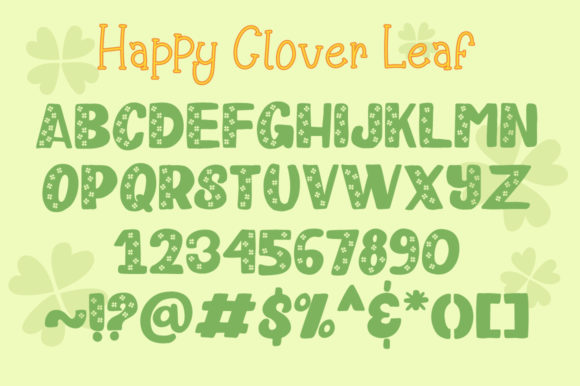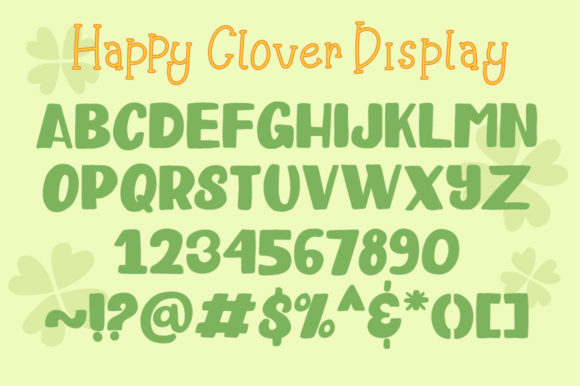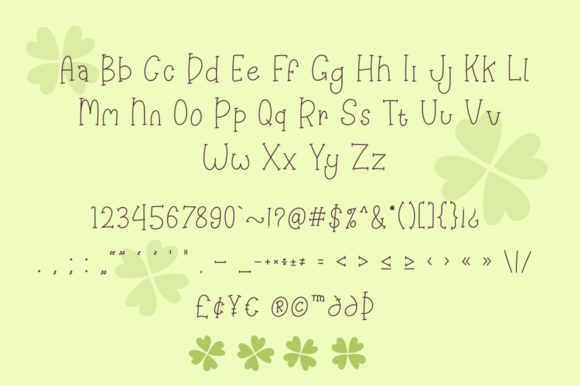
Introduction to Happy Clover Family Font
The Happy Clover is a fun font duo.
It’s an adorable font duo that combines slab serif, bold caps and patterned letters Included as a bonus are fun doodles in eps and ai format.